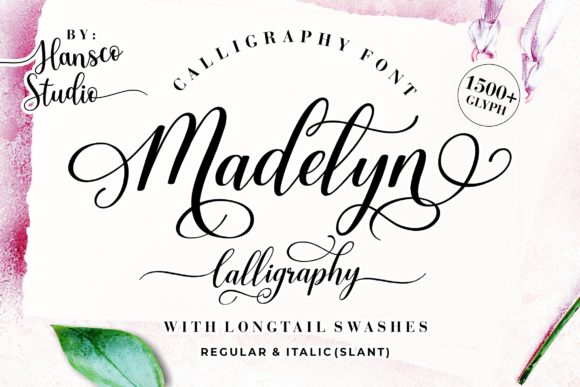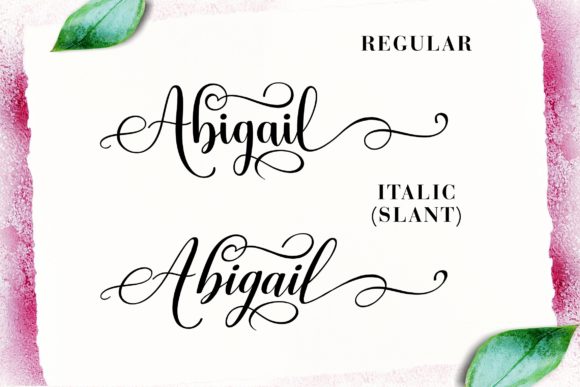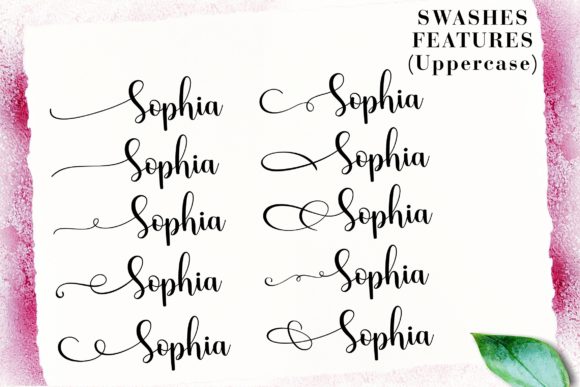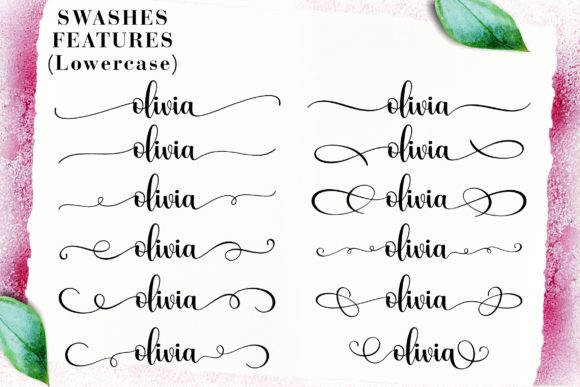
Madelyn Calligraphy Font
About the Madelyn Calligraphy Font
Step up your design game with Madelyn Calligraphy Font, a font that exudes confidence and style. Madelyn Calligraphy is a clean and modern script font. Whether you’re looking for fonts for Instagram or calligraphy scripts for DIY projects, this font will turn any creative idea into a true piece of art! This font is PUA encoded which means you can access all glyphs and swashes with ease!
Madelyn Calligraphy’s clean lines and modern feel make it ideal for headlines, short text blocks on invitations or branding materials, and even stylish logos. Its elegant nature lends itself well to projects requiring a touch of sophistication, such as wedding stationery or high-end product packaging. However, its script style isn’t suited for body text or lengthy paragraphs; readability would suffer. Avoid using it in UI contexts or situations demanding high levels of legibility at small sizes.
The overall personality of Madelyn Calligraphy is sophisticated and modern, yet approachable. It conveys a sense of elegance without being overly fussy or difficult to read in short applications.
Madelyn Calligraphy Font Usage Examples
Madelyn Calligraphy Font Example